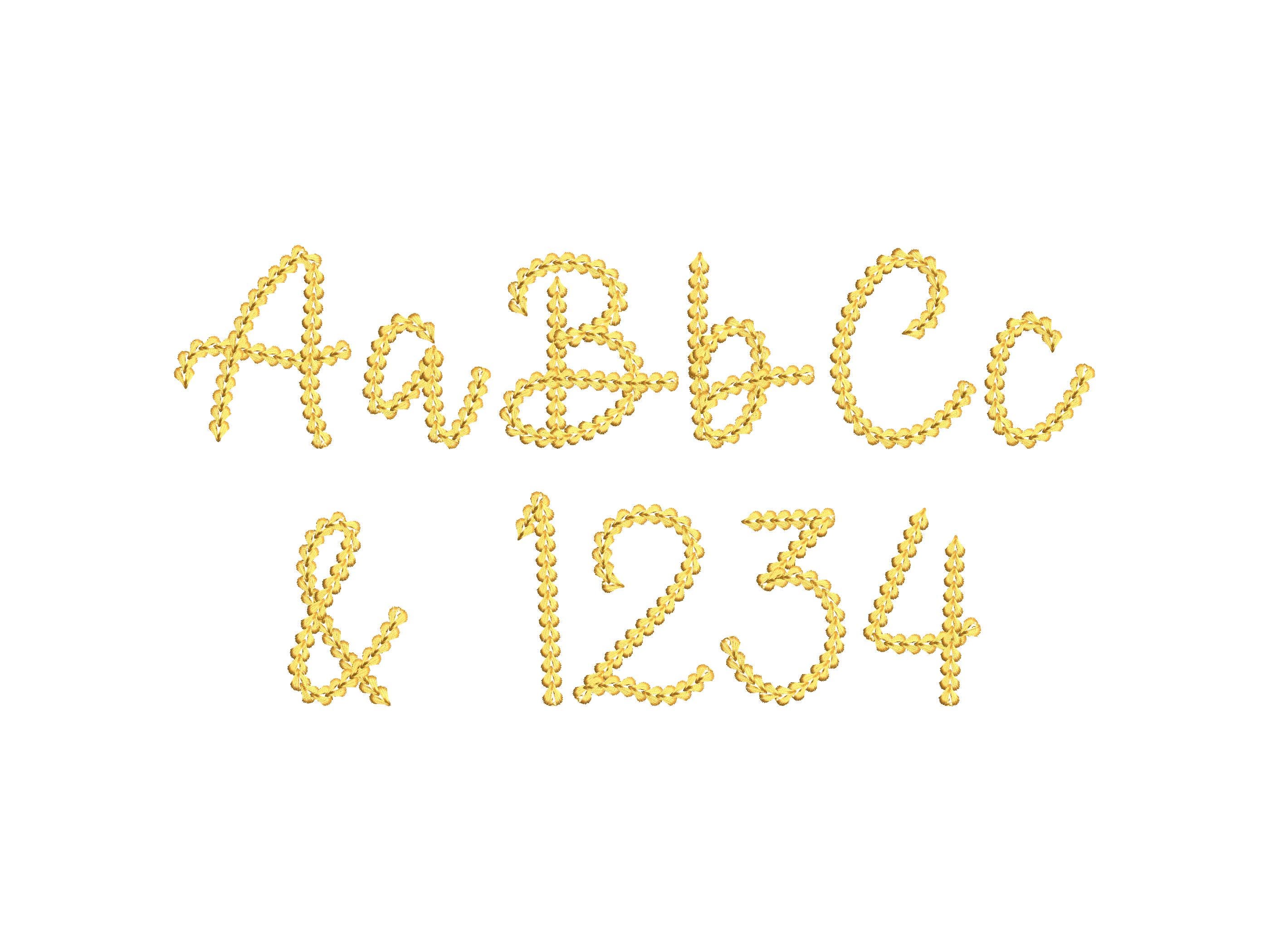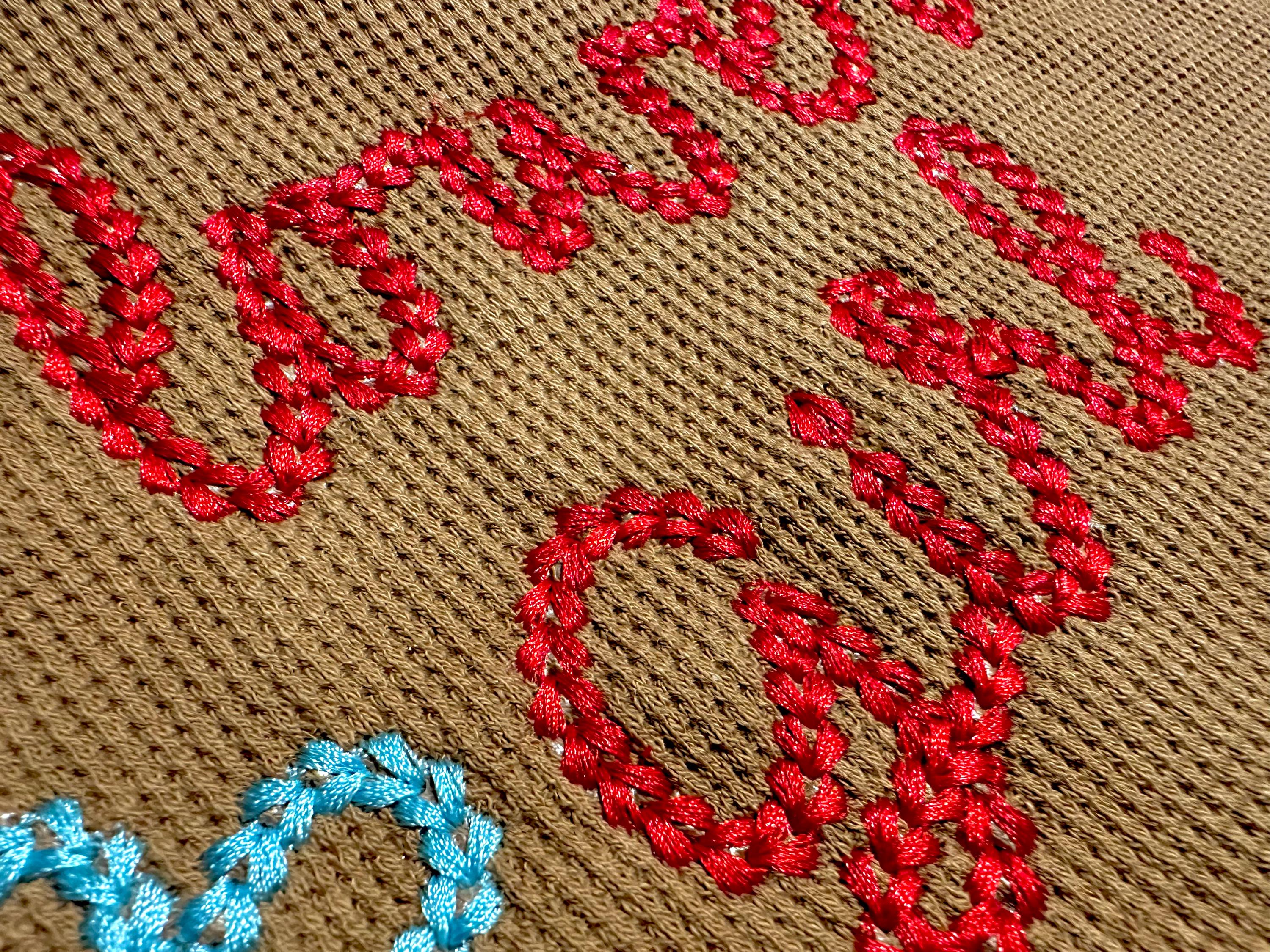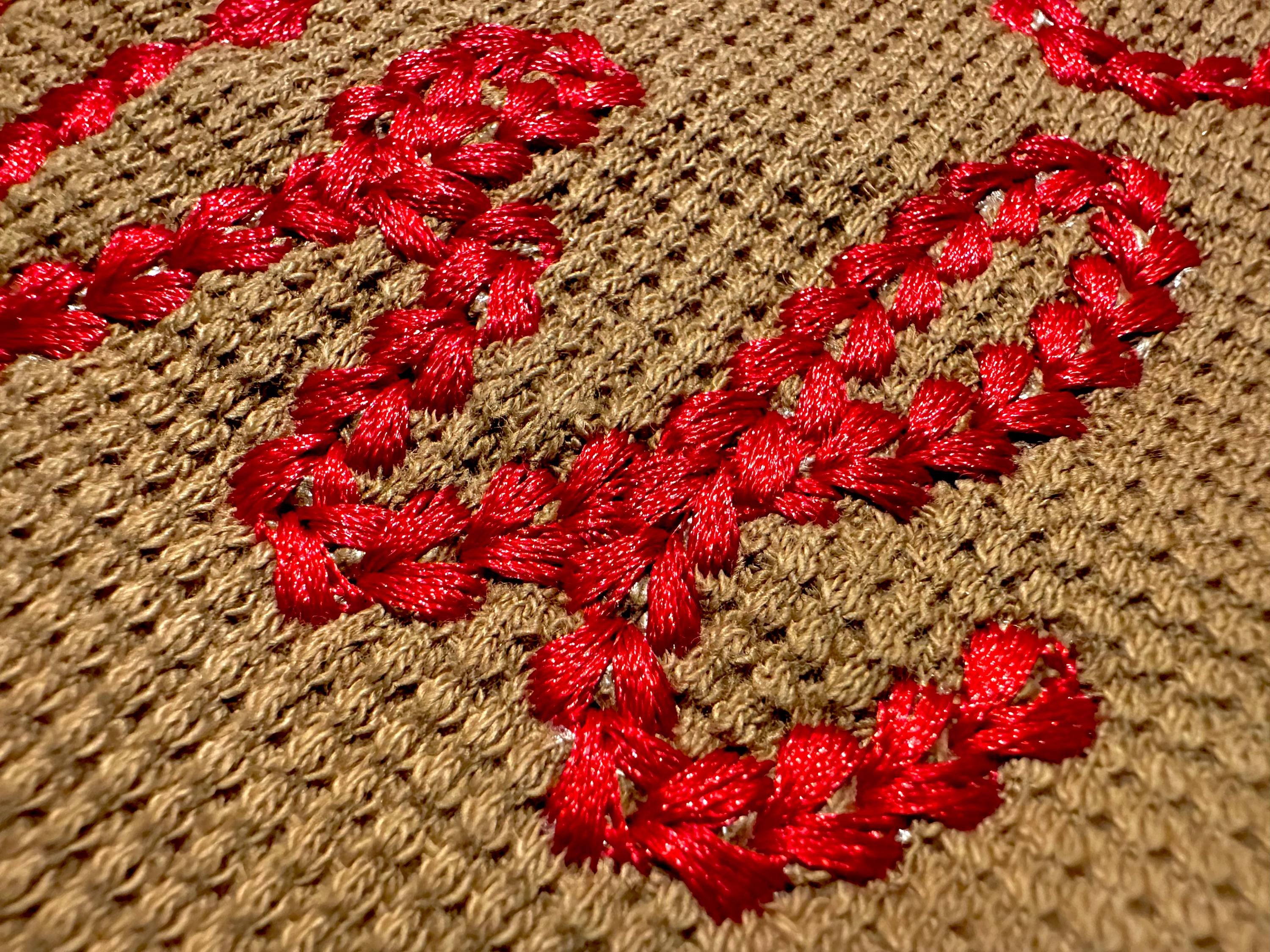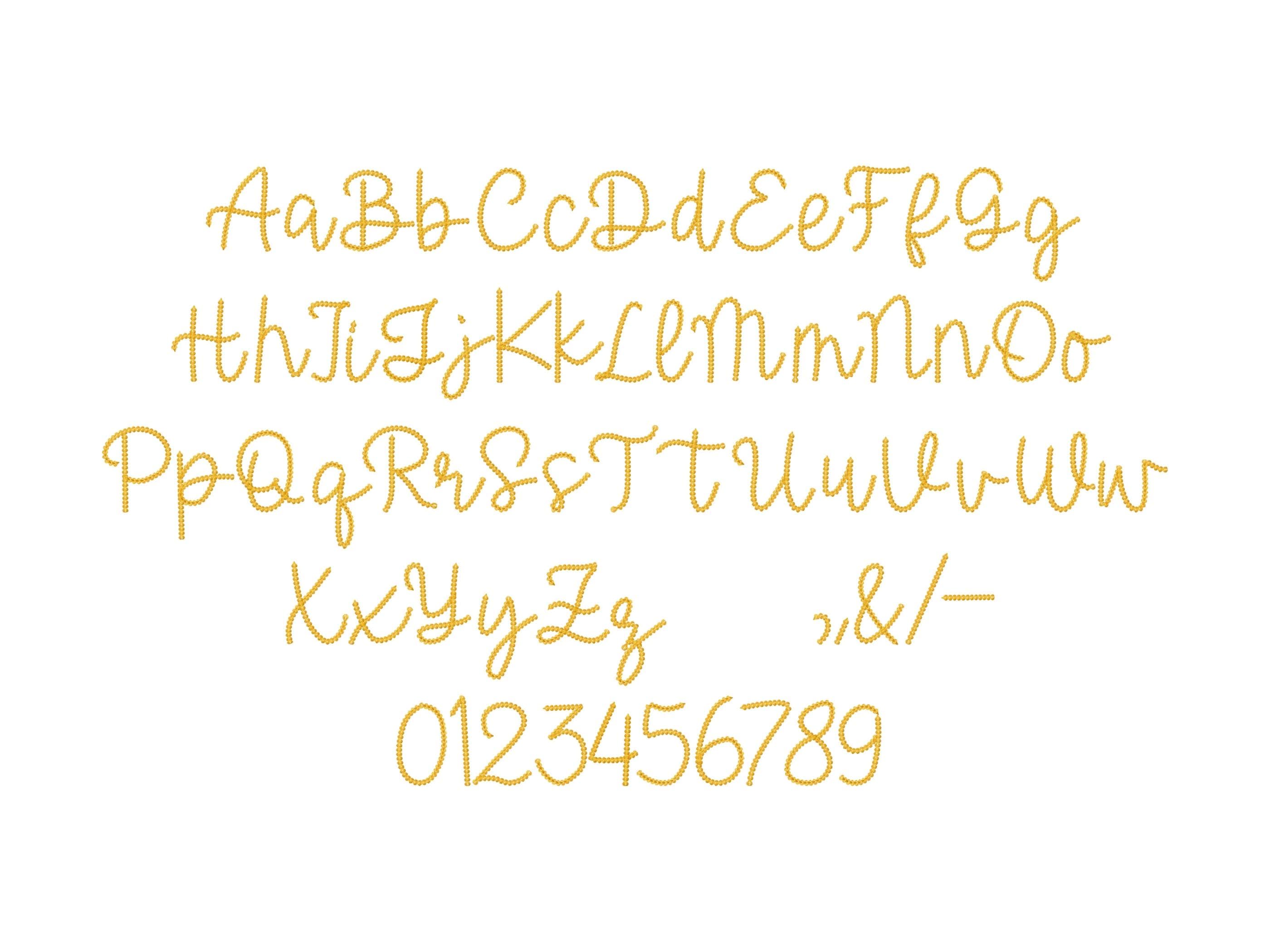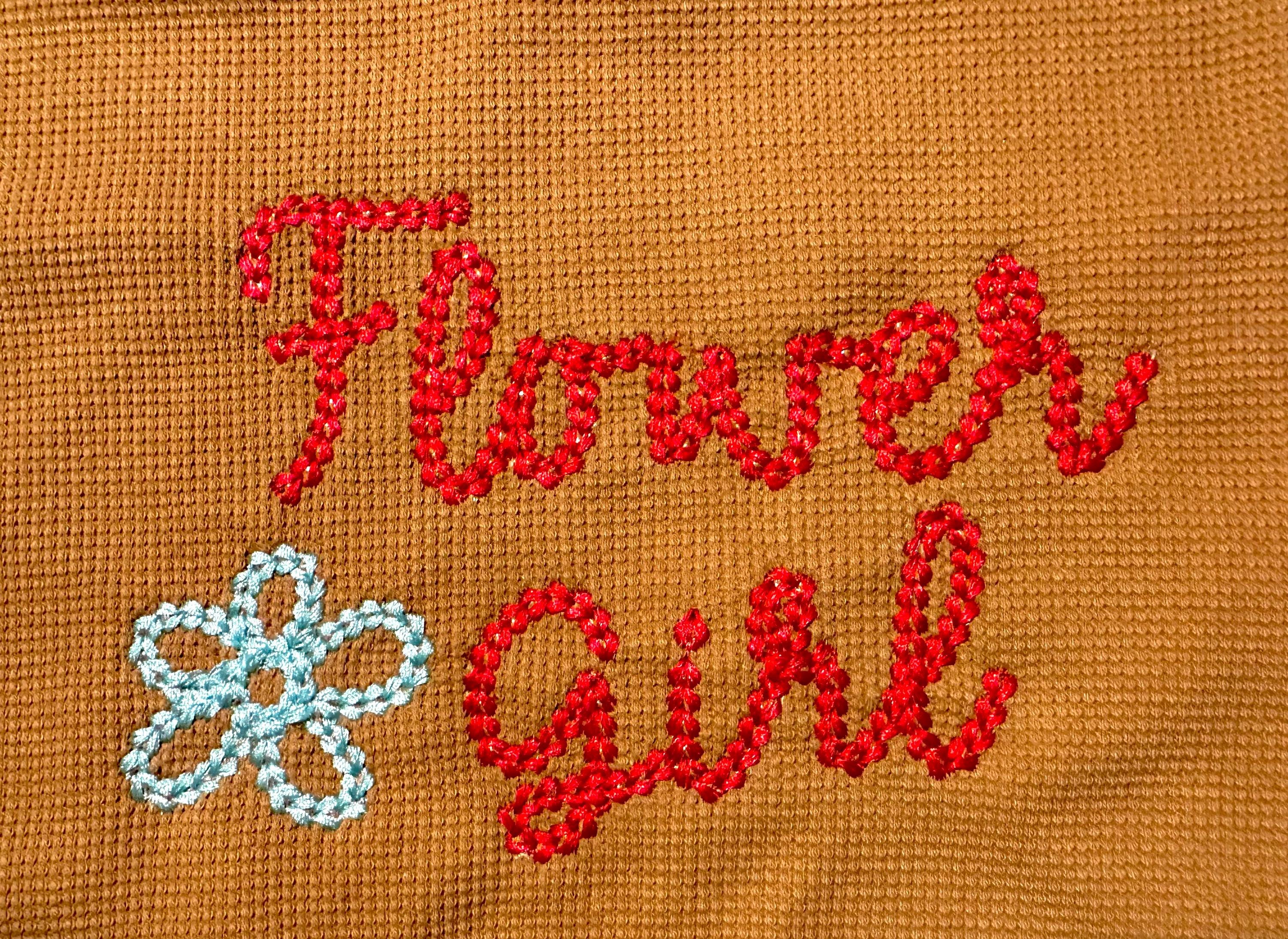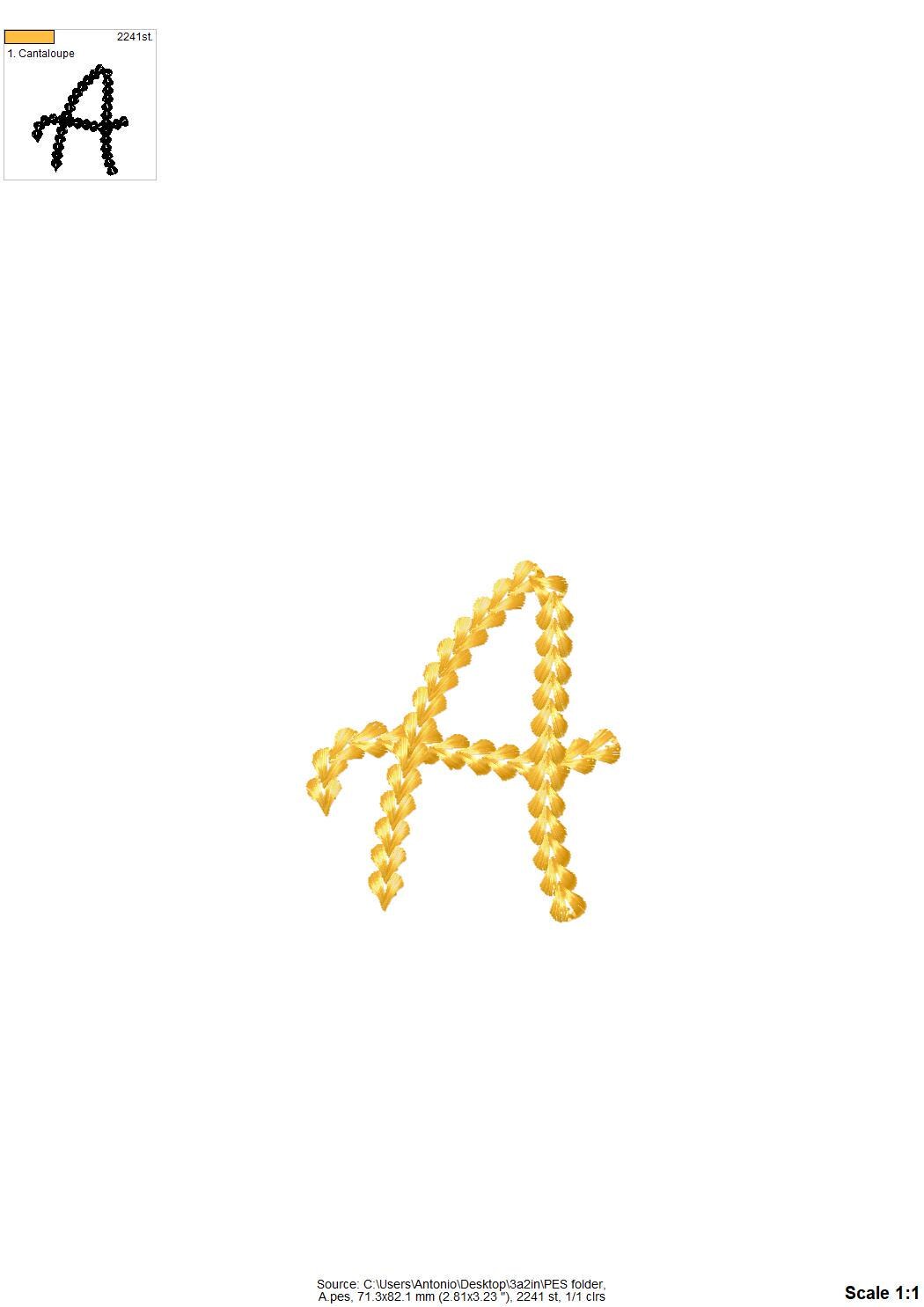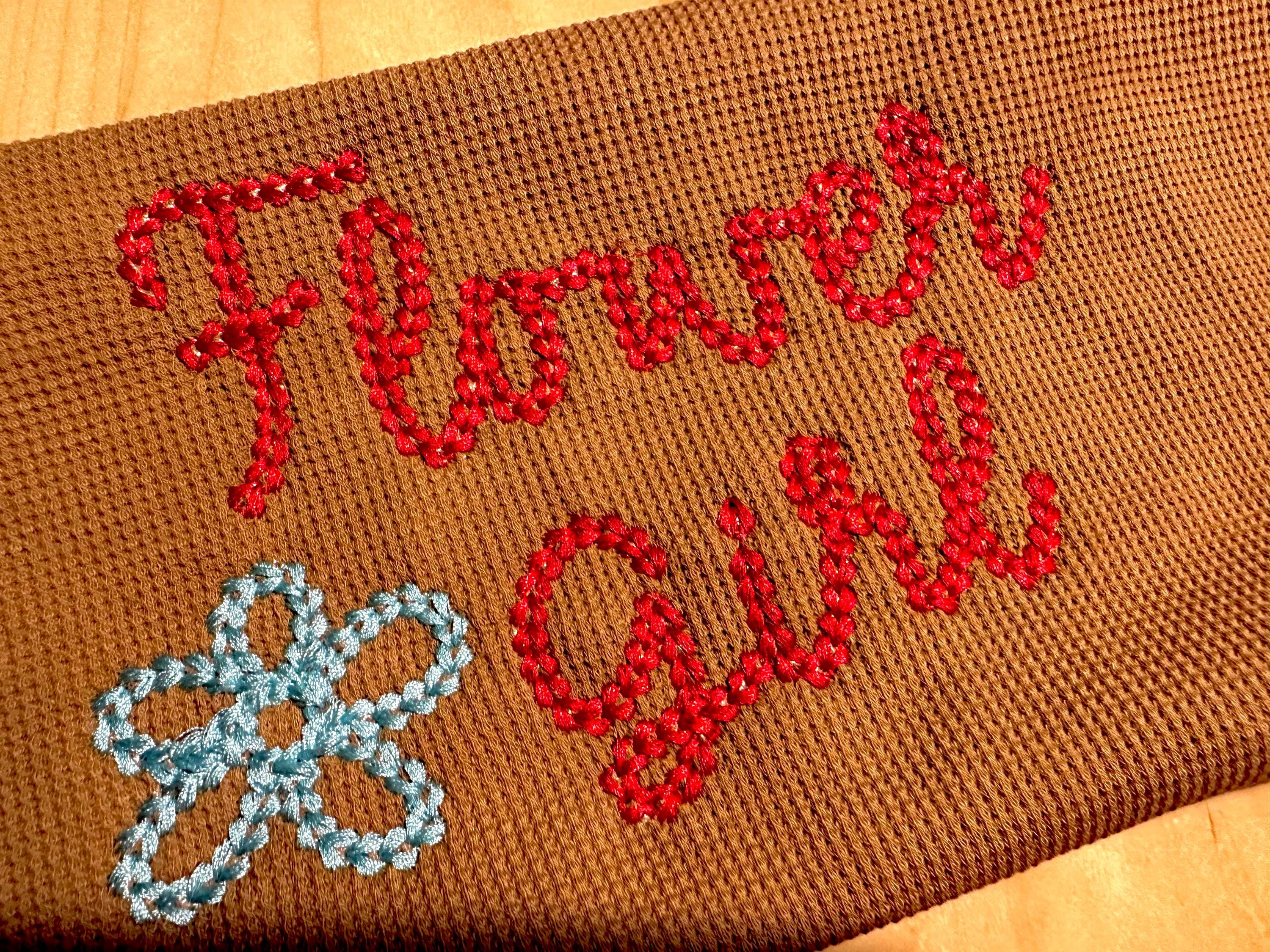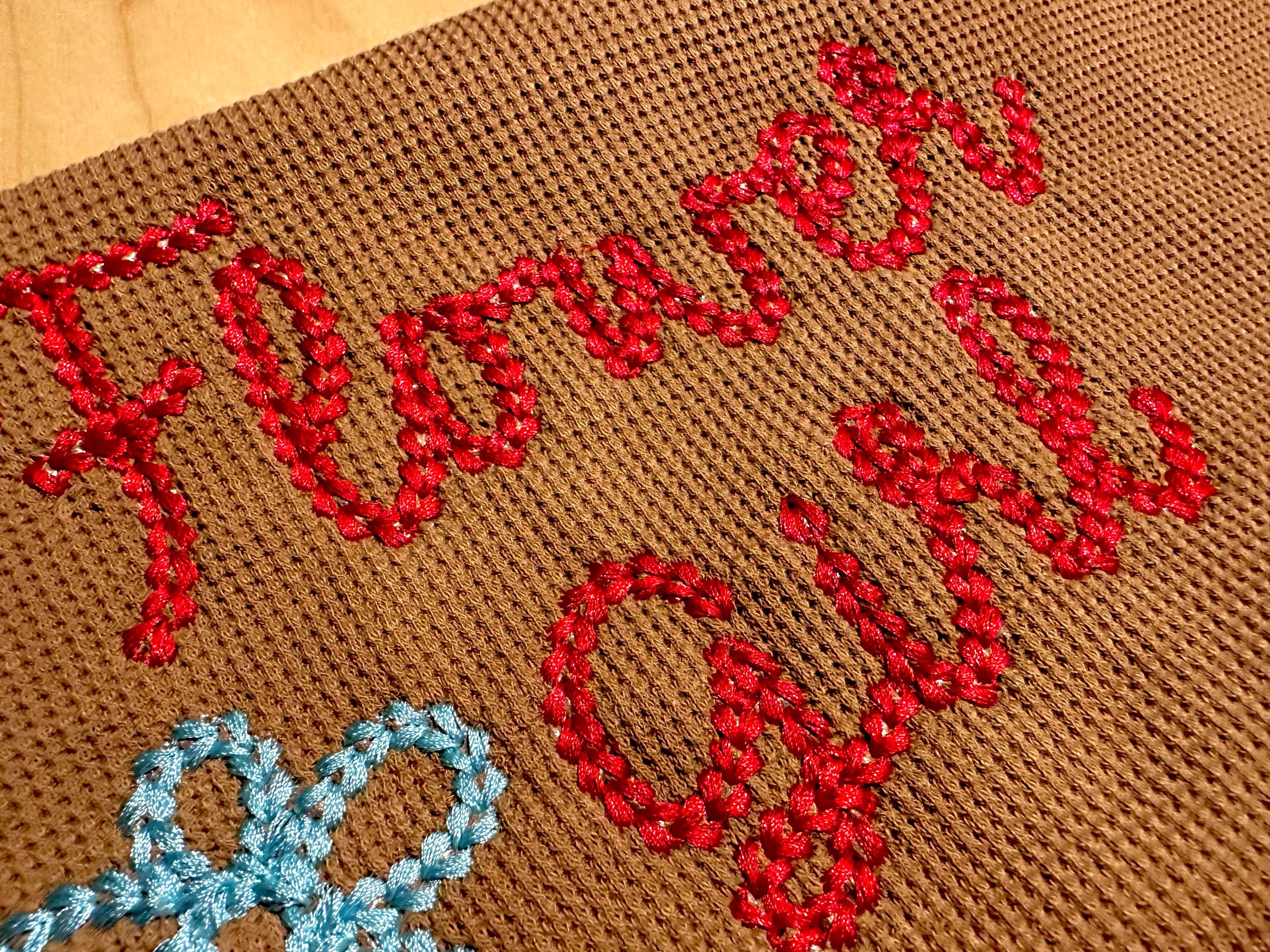
Extra Bold Chain stitch handwritten FONT dense chain machine embroidery designs monogram alphabet letters knit sweater handmade effect, BX
Entire alphabet uppercase and lowercase letters, numbers, and punctuation.